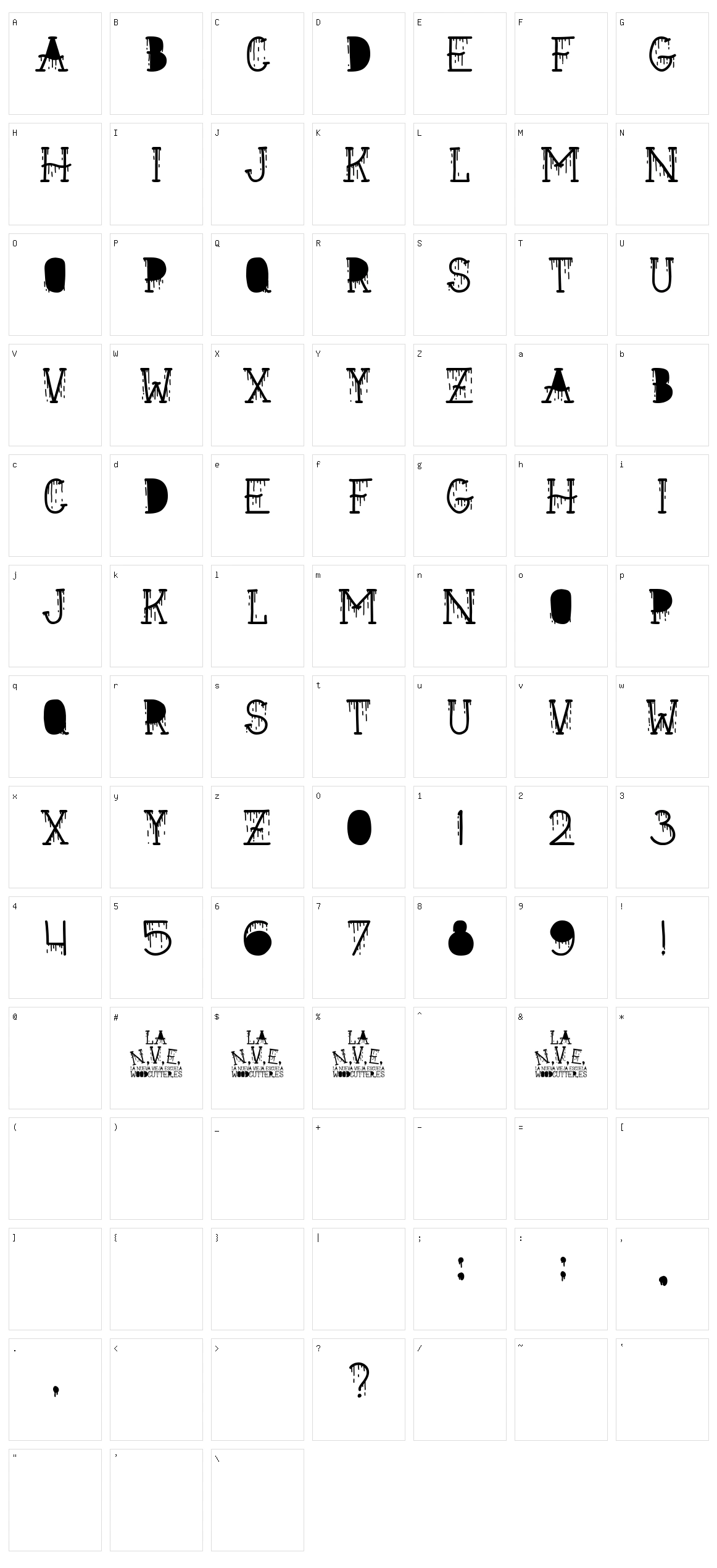
The free font La Nueva Vieja Escuela is carefully designed by Woodcutter, showcasing a thoughtful balance of creativity and usability and falls under the Horror font style. When you download the ZIP file, it contains only 56.71 KB of font files, making it lightweight and quick to download. Please review the license details below to understand permitted usage and distribution rights. If license information is not available, we recommend using this font for personal projects only or contacting the author directly for commercial usage permissions.